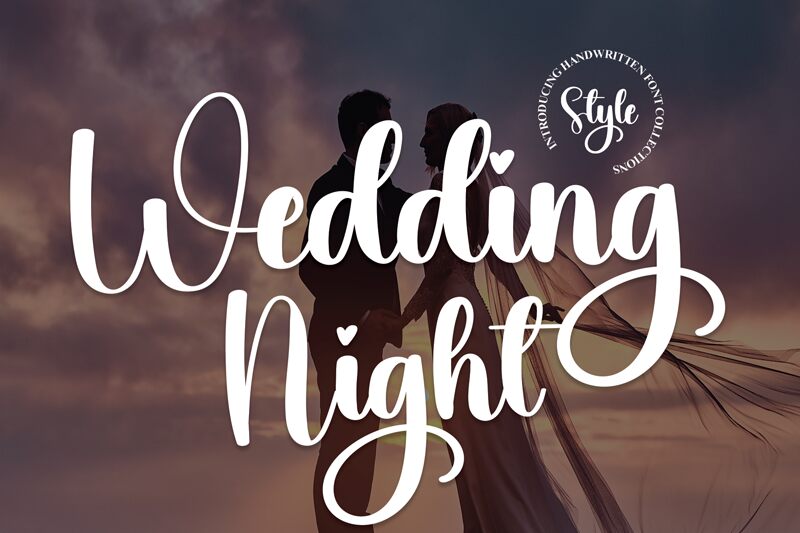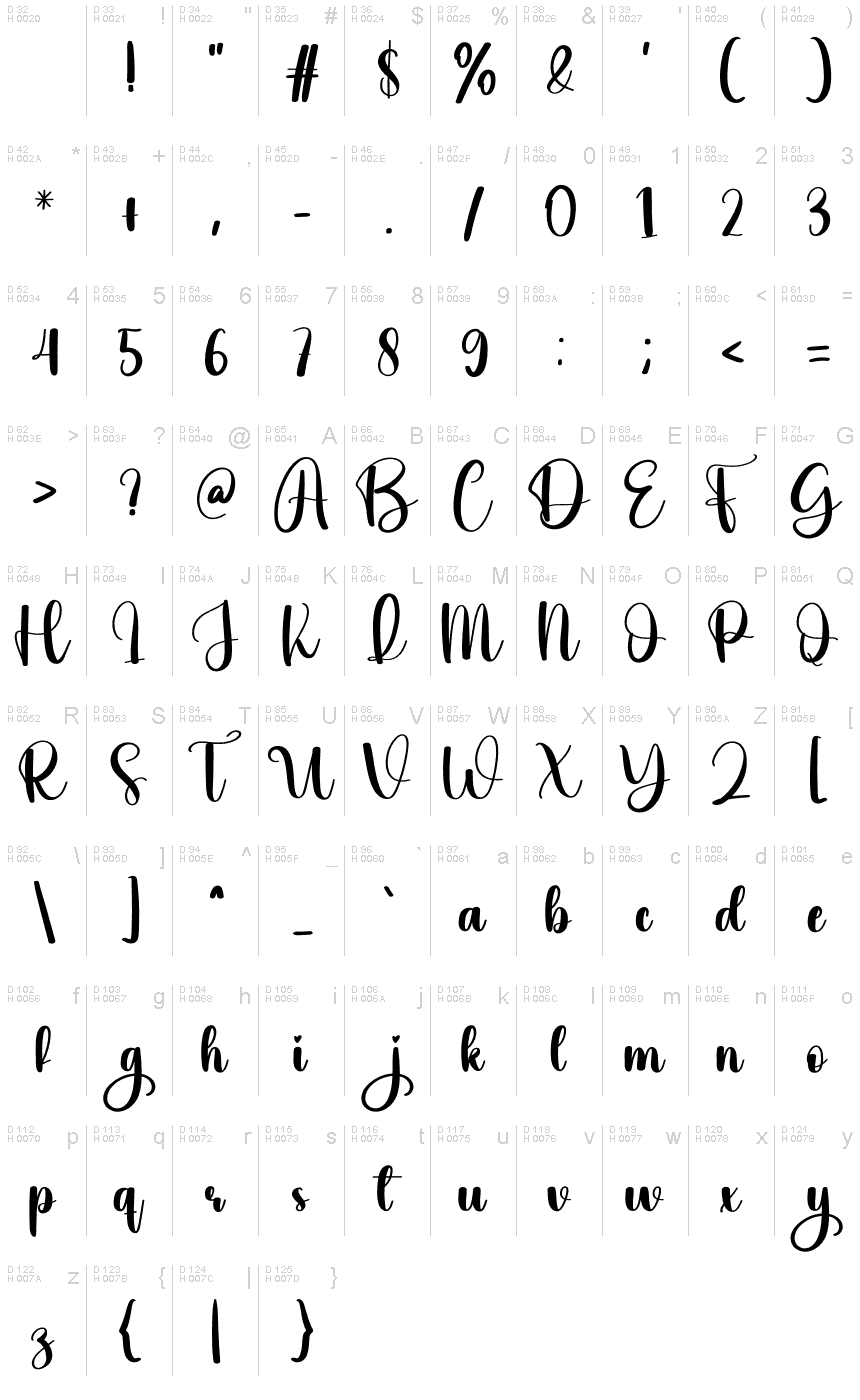
Wedding Night
Wedding Night, a creation by Scratchones, embodies the essence of personal touch with its handwritten style that exudes charm and elegance. The fluidity of its strokes and the delicate balance between whimsy and sophistication make it a standout choice for moments that call for a heartfelt connection. Each letter in this font dances with an effortless grace, making it an aesthetic treasure for invitations, branding, and any project where you wish to inject a sense of intimacy and bespoke craftsmanship.
Wedding Night's allure lies in its ability to transform words into visual poetry, ensuring your message is not just read but felt.